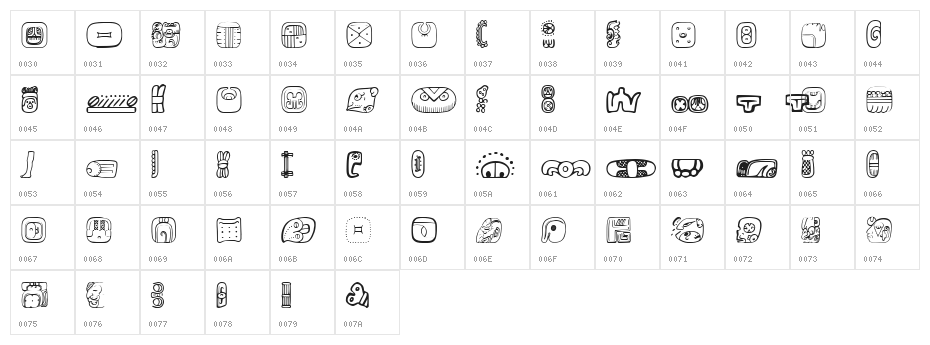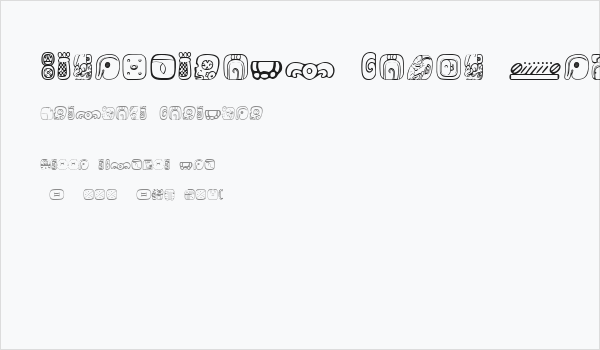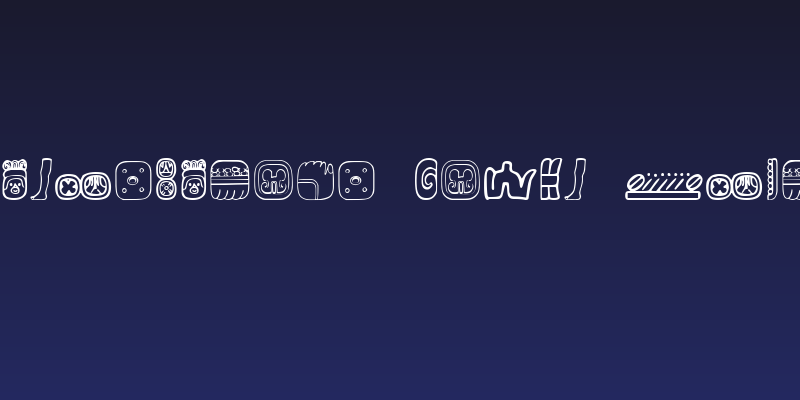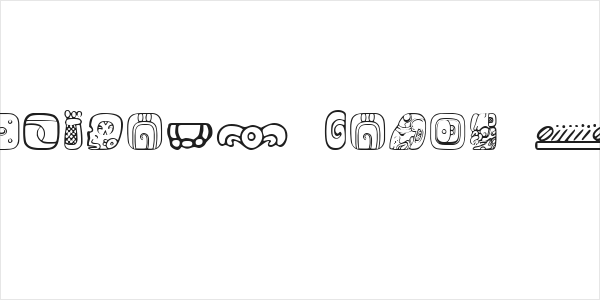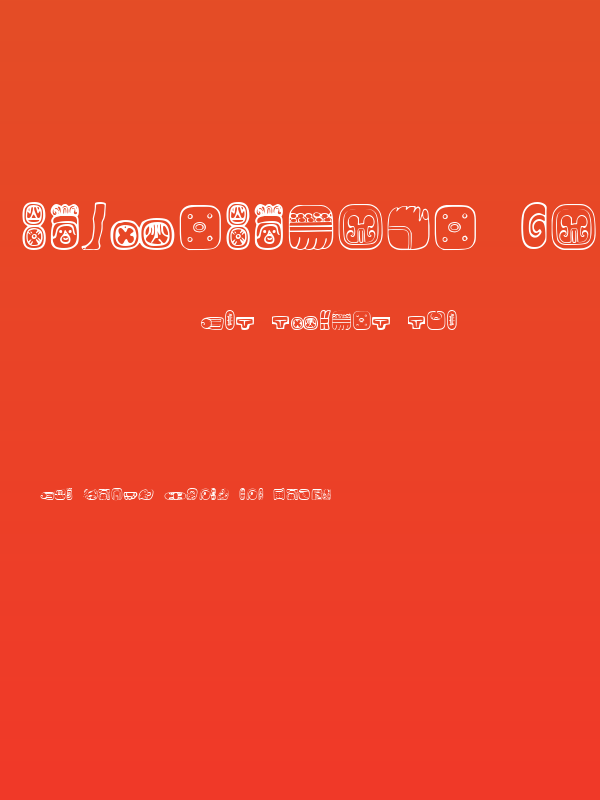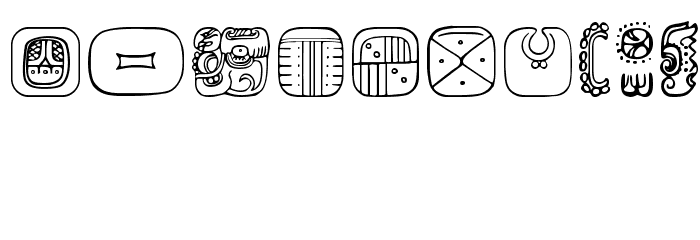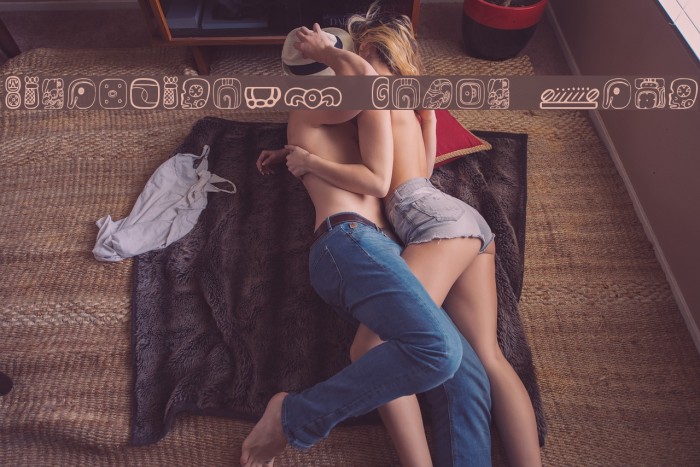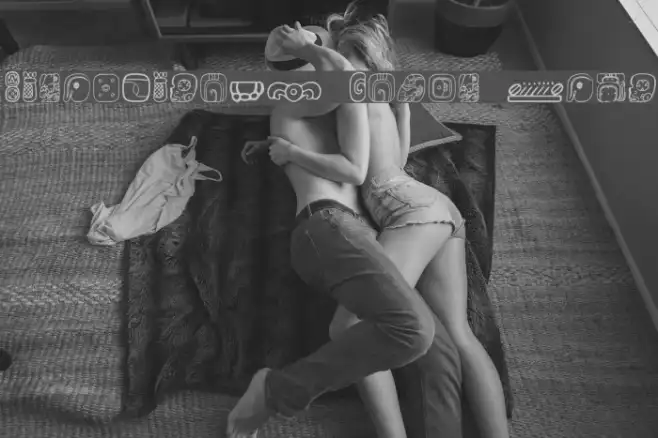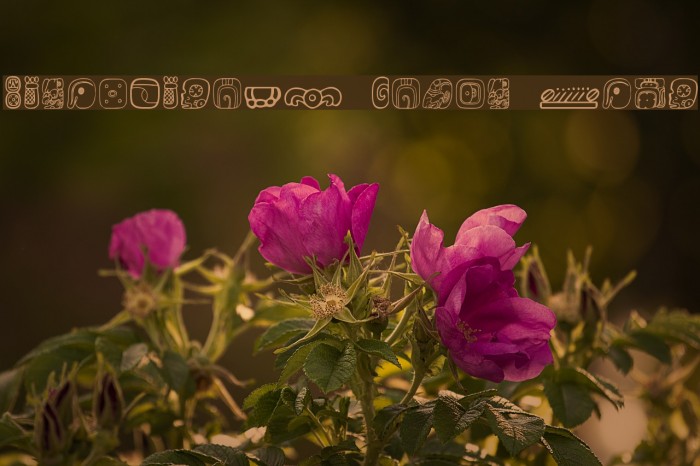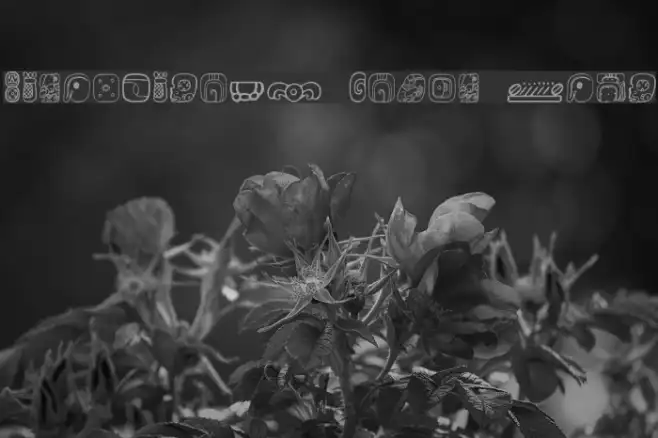
MesoAmerica Dings Four Font
MesoAmerica Dings Four Description
This font is a collection of intricate and decorative glyphs inspired by Mesoamerican iconography. Each character is a unique representation of ancient symbols, featuring detailed line work and complex patterns. The style is highly ornamental, with each glyph resembling a small piece of art. The characters vary significantly in design, showcasing a range of motifs from abstract shapes to stylized depictions of animals and faces. This font is not suitable for traditional text but serves as a decorative element that can add a historical or cultural touch to a design project.
| Use Case | Logos, Decorative elements |
| Proposed Projects | Ideal for cultural projects, educational materials on ancient civilizations, decorative posters, or any design requiring a historical or artistic flair. |